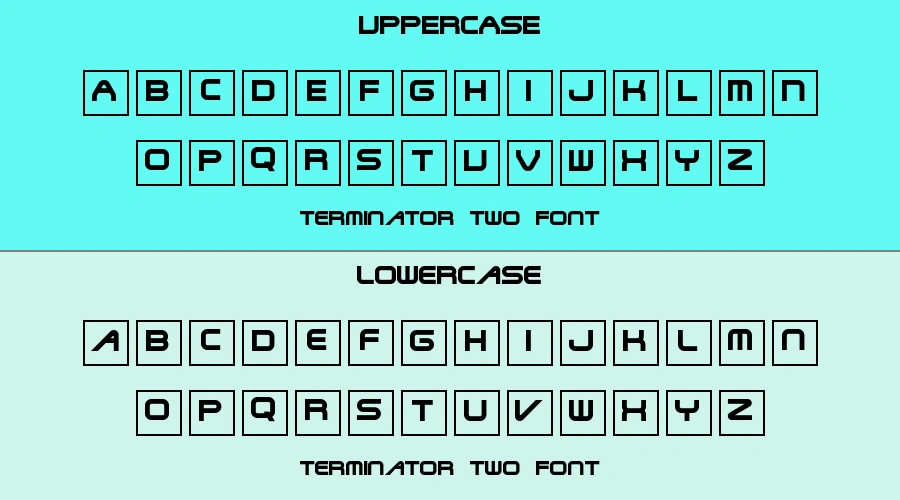
About Terminator Two Font
Designed with precision, Terminator Two Font merges engineered curves with optical adjustments in every character. This versatility makes it particularly effective for book design, where precision and functional utility directly impact communication quality. Each letterform demonstrates meticulous craftsmanship.
Technical excellence shines through elements like subtle details and authentic details, enhancing typographic versatility. In specification lists settings, Terminator Two Font proves its worth through superior digital conversion. The thoughtful execution of terminal style and engineering heritage ensures professional results.